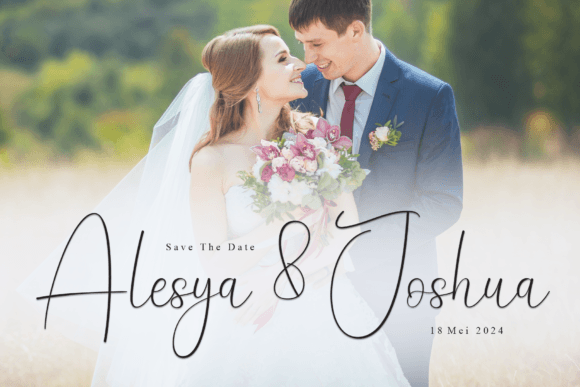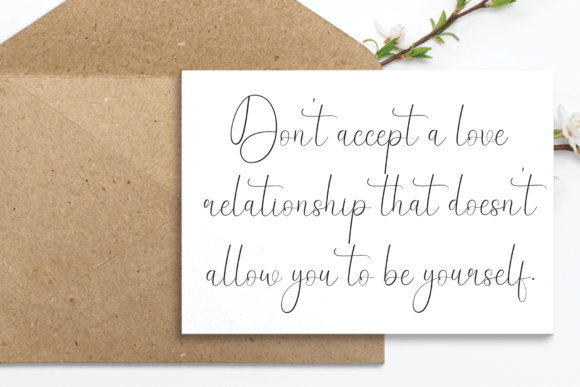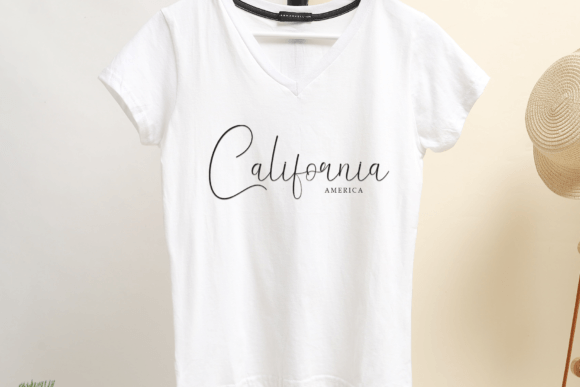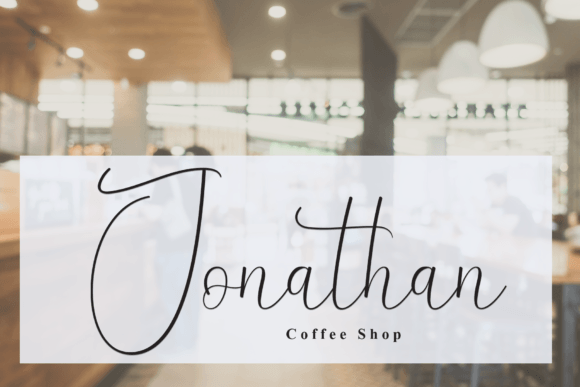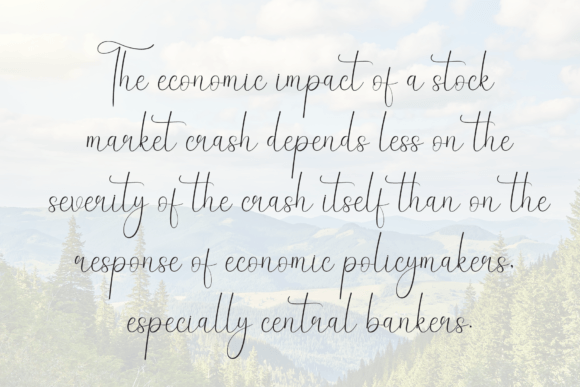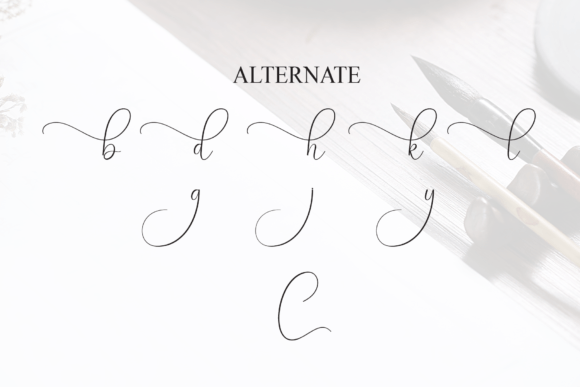
The Art of Beautiful Expression: Unlocking the Power of Calligraphy Font
Have you ever felt the rush of creative excitement when you’re brainstorming ideas for a special project, and a spark of inspiration hits you? For many designers, that moment comes when they’re searching for the perfect font to bring their vision to life. For me, it was the discovery of the stunning Calligraphy Font that sparked a new wave of creativity.
Calligraphy Font is a timeless and elegant script font that adds a touch of sophistication to any design. Whether you’re creating wedding invitations, thank you cards, or logos, this font is sure to make a lasting impression. Its versatility and beauty make it a valuable asset for designers looking to add a personal and handwritten touch to their work.
With the Calligraphy Font, designers can unlock a world of creative possibilities and take their designs to the next level. Its unique style and charm make it an essential tool for anyone looking to create truly unforgettable designs.
Key Features of Calligraphy Font
- Unique Characteristics: Features intricate and decorative lettering, with flourishes and swashes that add a touch of elegance and sophistication
Calligraphy Font Review
As a designer, I was excited to dive into the world of calligraphy fonts. I’m happy to report that Calligraphy Font delivers in many ways! ✨ Here are a few things that stood out to me:
- The fluidity of the strokes is stunning, making it perfect for adding a touch of elegance to invitations, wedding stationery, and other special occasion designs.
- The font is highly customizable, with a range of weight options and opacities that allow you to create a unique look for your project.
- The calligraphy font is also highly legible, even at smaller font sizes, making it a great choice for body text.
Of course, no font is perfect, and Calligraphy Font has a few limitations that I’d like to mention: ⚠️
- The font can be a bit over-the-top for more casual or everyday designs, where a simpler font might be more suitable.
- The weight options can sometimes make the font feel a bit too ornate, even with careful adjustments.
Overall, I’m really impressed with Calligraphy Font and would definitely recommend it to designers looking to add some flair to their projects. With a little practice and patience, you can achieve some truly stunning results with this font!
Calligraphy font is commonly used for wedding invitations, event signage, and marketing materials. It’s also used for creating a vintage or elegant look in design projects.